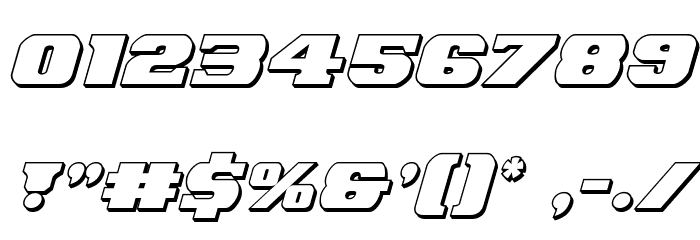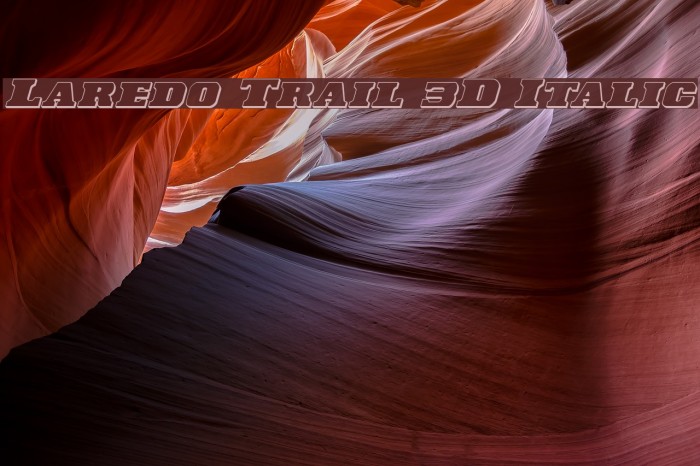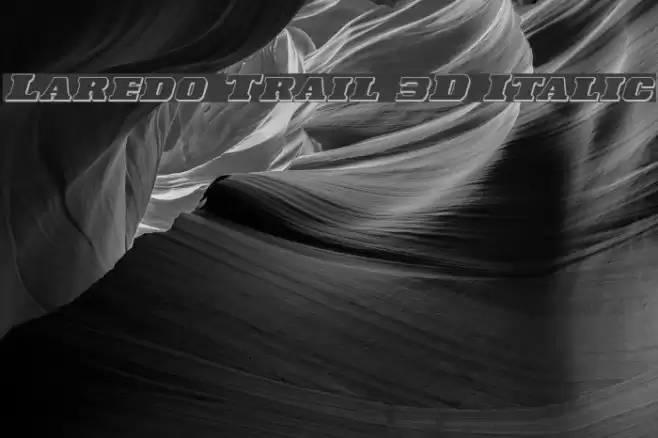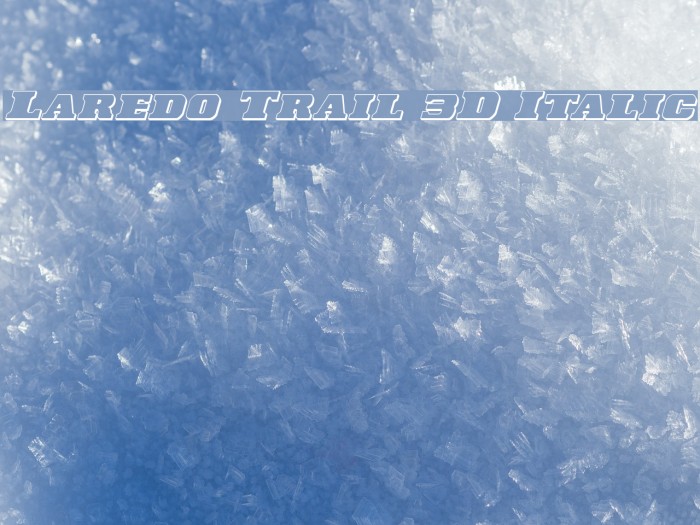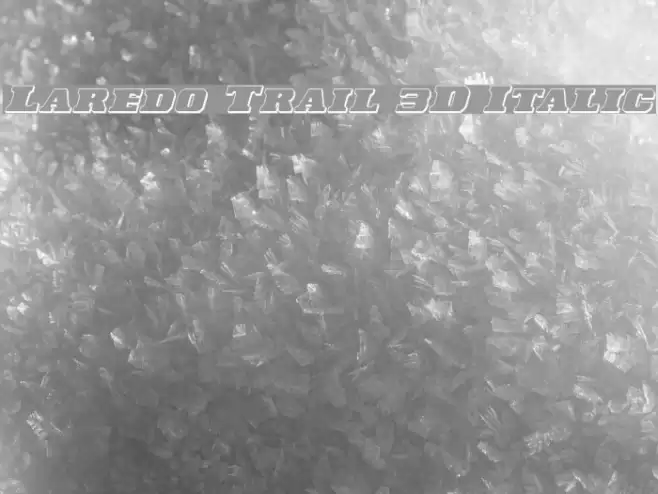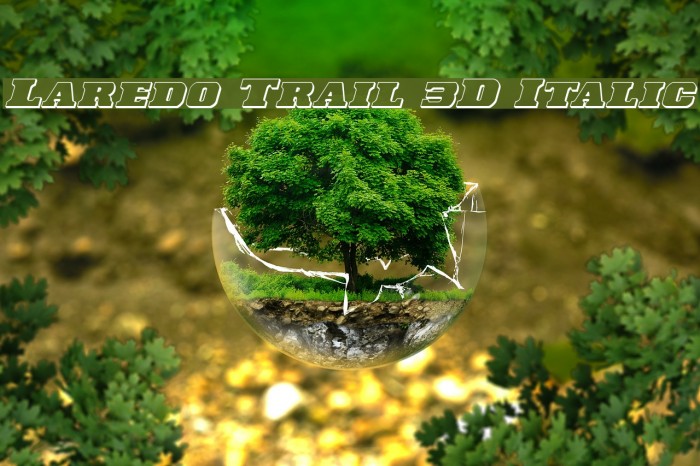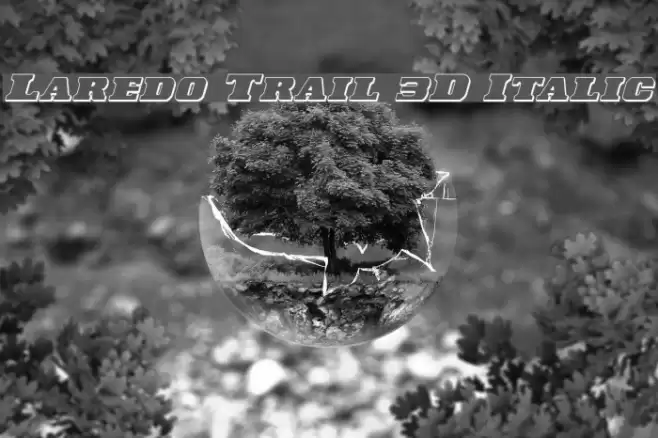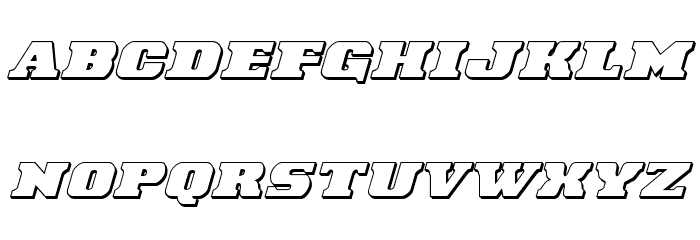
Laredo Trail 3D Italic Font
Laredo Trail 3D Italic Description
This font features a bold, three-dimensional style with a distinct italic slant, giving it a dynamic and impactful appearance. The characters are outlined, creating a shadow effect that enhances the 3D illusion. The uppercase letters are prominent and commanding, while the lowercase letters maintain the same boldness and style. The numbers and special characters follow the same design, ensuring consistency across all glyphs. This font's unique style makes it stand out, perfect for projects that require a strong visual presence.